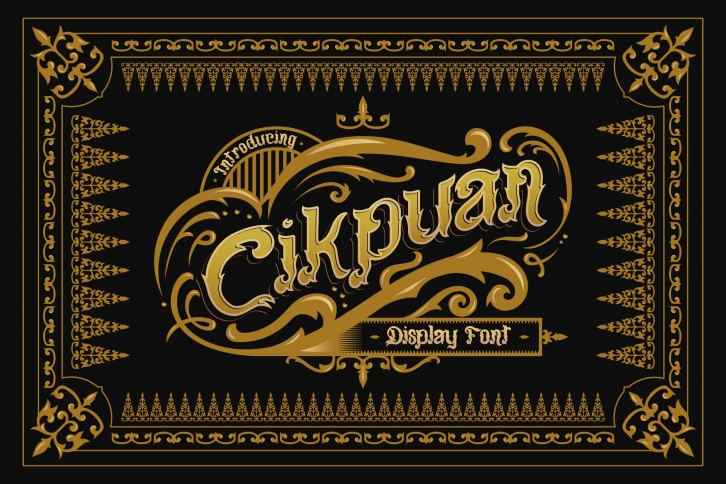
Cikpuan is inspired by ornament Riau Malay. It is perfect for vintage logo design, headlines or packaging design. The product also includes a set of decorative ornaments. This combination allows you to easily build beautiful vintage designs in a short time.